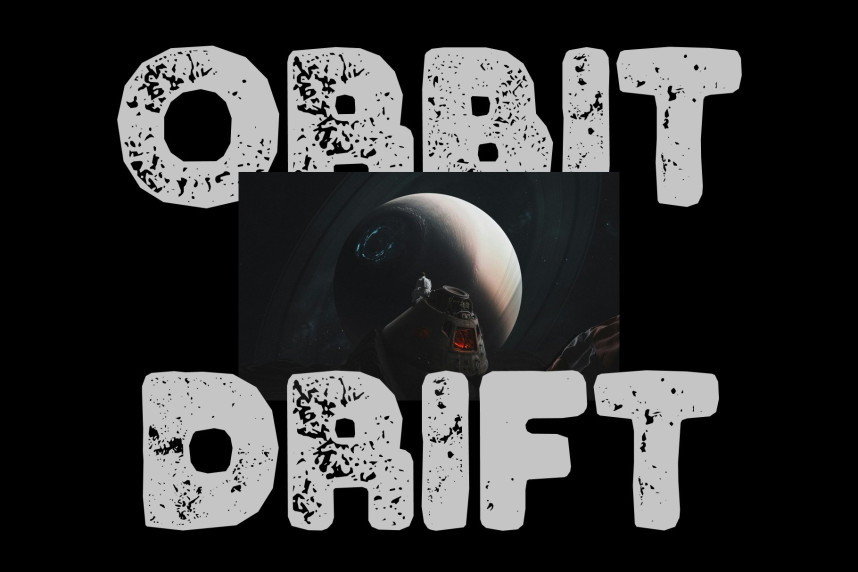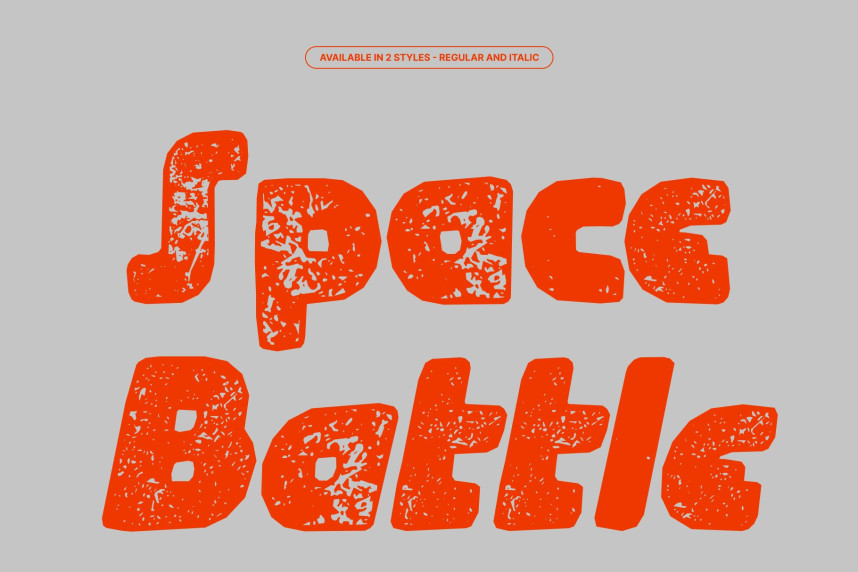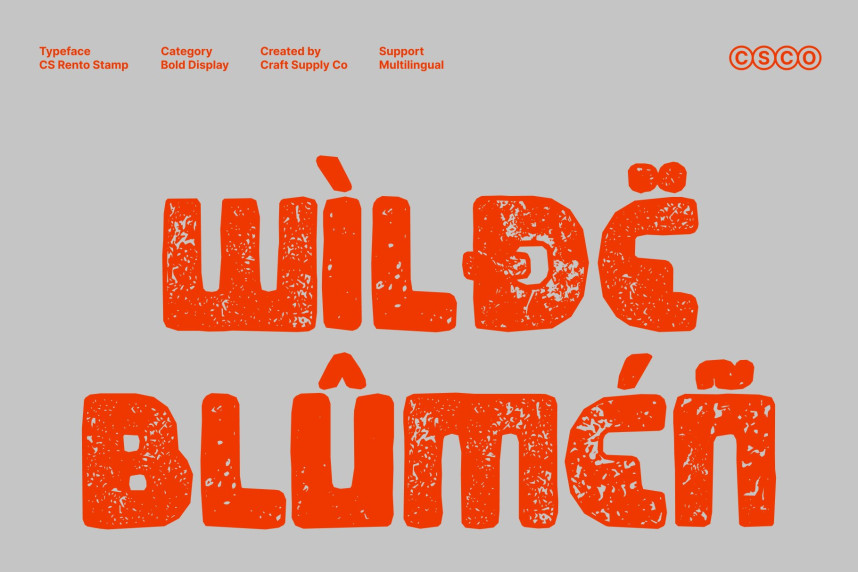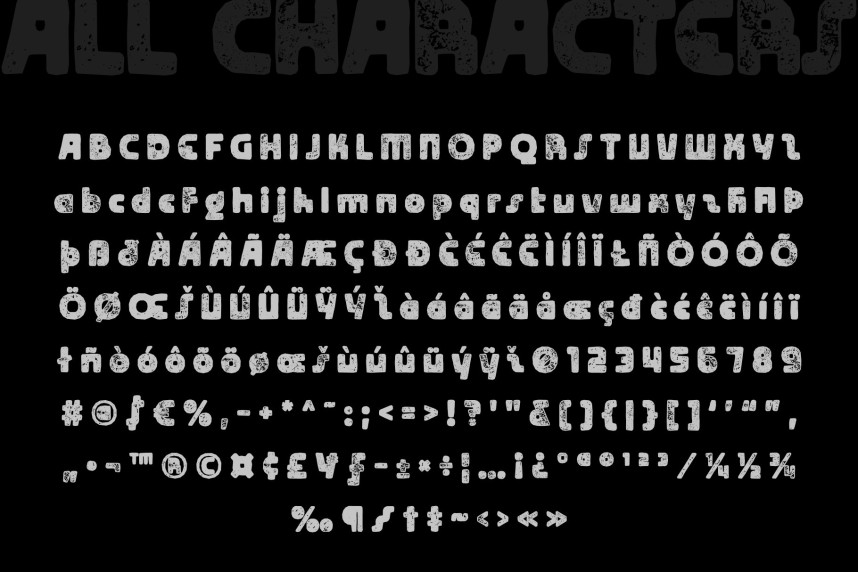
CS Rento Stamp Font
CS Rento Stamp Font – Bold Display Font: Where Futuristic Geometry Meets Vintage Texture
Strong Geometric Forms with Contemporary Appeal
This is a bold display font built from strong geometric shapes that create a powerful and confident visual presence. Its structured construction delivers clarity, balance, and impact, while its carefully crafted proportions maintain a sense of approachability. The result is a typeface that feels modern, bold, and highly memorable.